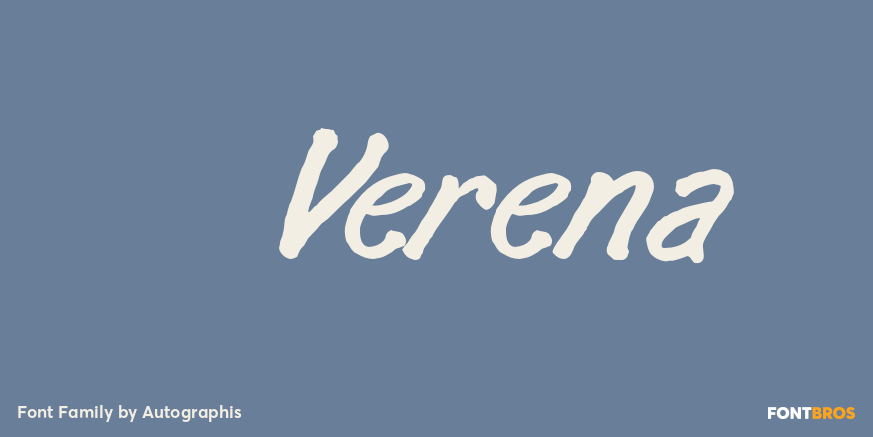
Verena was written with a common felt marker pen, scanned and worked over, to keep just the right amount of roughness. The result is a very readable and usable handwritten font.